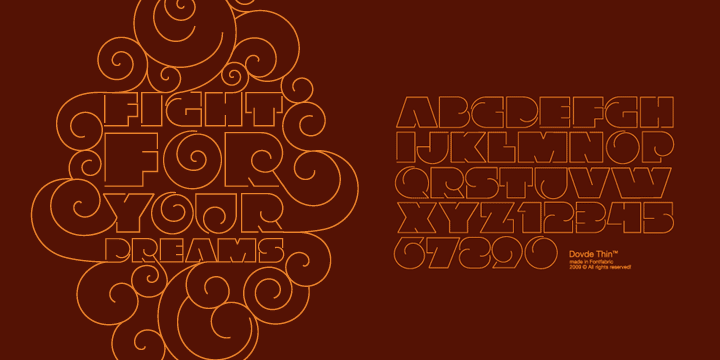
About the Dovde Font
About Dovde Font Family Dovde is a custom font which is applicable for any type of graphic design – web, print, motion graphics etc and perfect for t-shirts and logos, Designers: Svetoslav SimovPublisher: FontfabricFoundry: FontfabricDesign Owner: FontfabricMyFonts debut: Jan 28, 2009 Dovde™ is a trademark of Fontfabric,